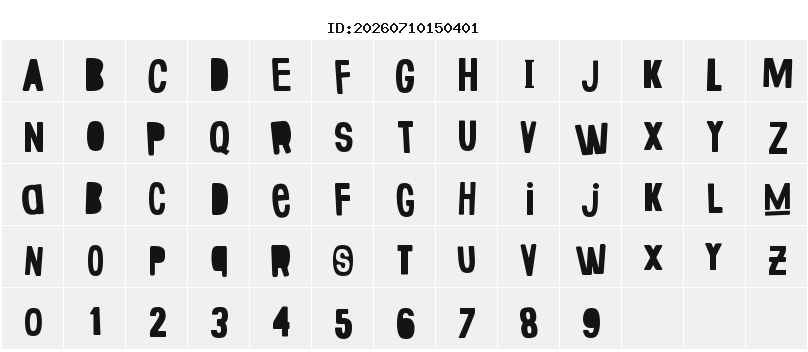
Fake Smiths Preview
• Font Name: Fake Smiths
• Full Font Name: Fake Smiths
• Version: Version 1.00 October, 2013, initial release
• Designer: paintblack
About Fake Smiths.ttf
Fake Smiths.ttf is a modern, elegant sans-serif font designed for ultimate readability and visual harmony. Perfect for branding, headlines, web design, and print materials.